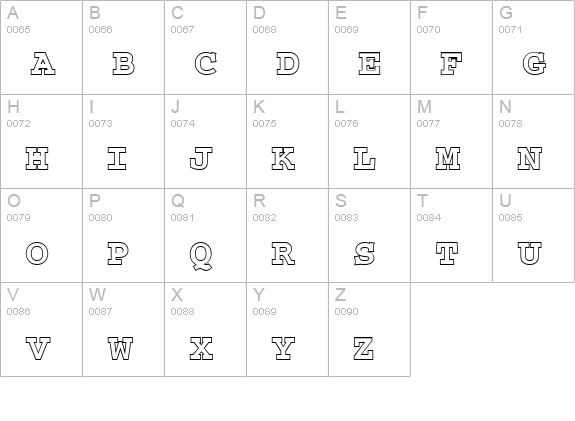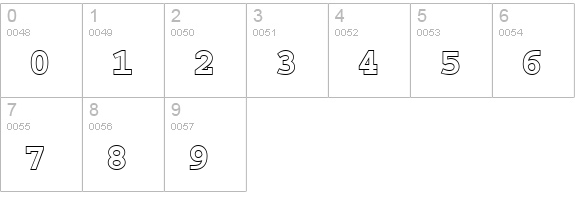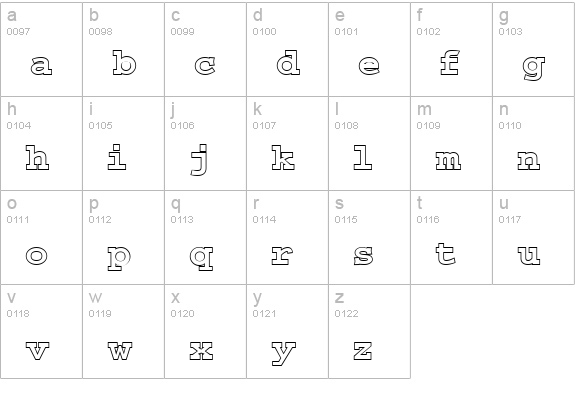
ChiselHollow Normal Font Details
ChiselHollow Normal is the standard, neutral variant in the ChiselHollow typeface family \xE2\x80\x94 well suited to general body text, paragraphs, and standard typographic work.
ChiselHollow Normal font is a modern and sleek typeface that exudes sophistication and professionalism. With its clean lines and sharp edges, this font is perfect for a wide range of design projects, from branding to editorial design. Its versatility allows it to be used in both digital and print applications, making it a must-have for any designer's toolkit. And the best part? ChiselHollow Normal font is completely free to download at FontsMarket.com. Simply visit the website and start using this elegant font in your projects today. Don't miss out on this fantastic opportunity to enhance your designs with the timeless beauty of ChiselHollow Normal font.